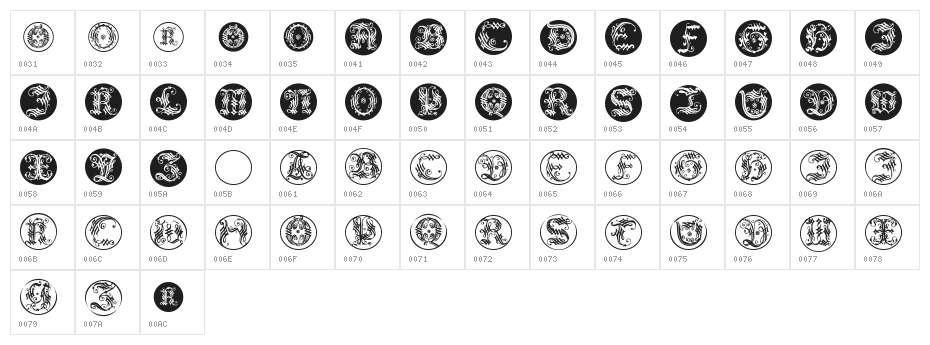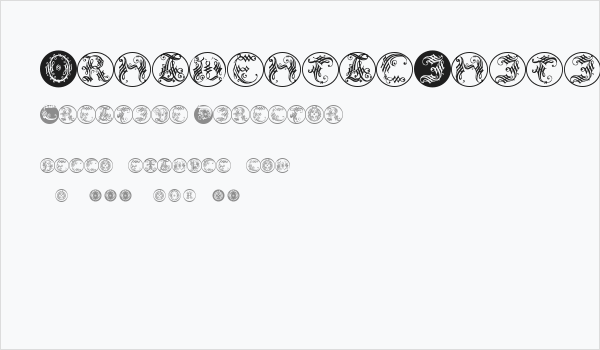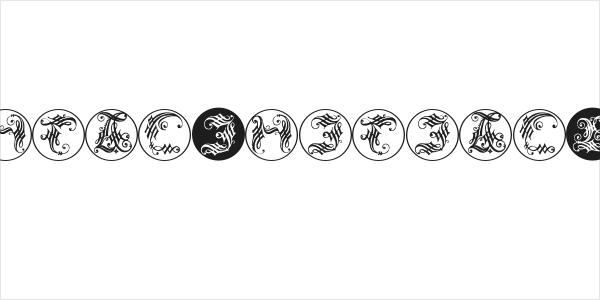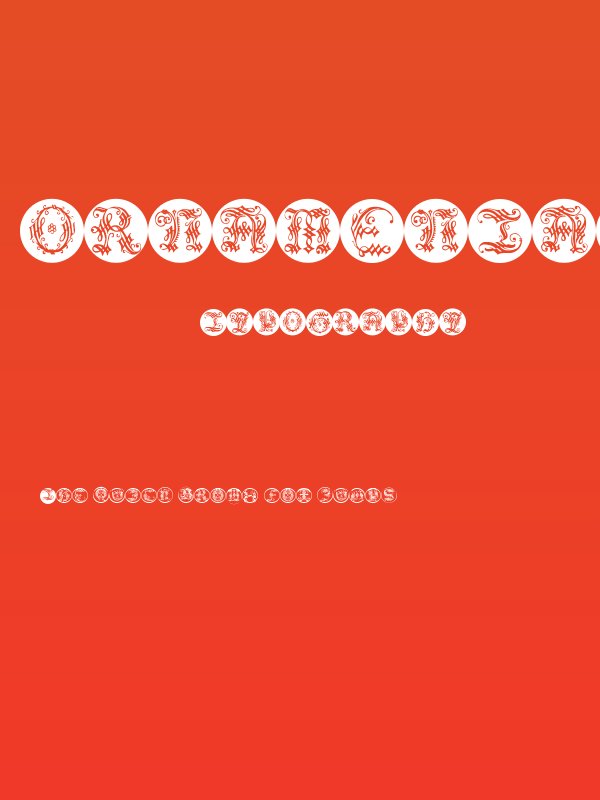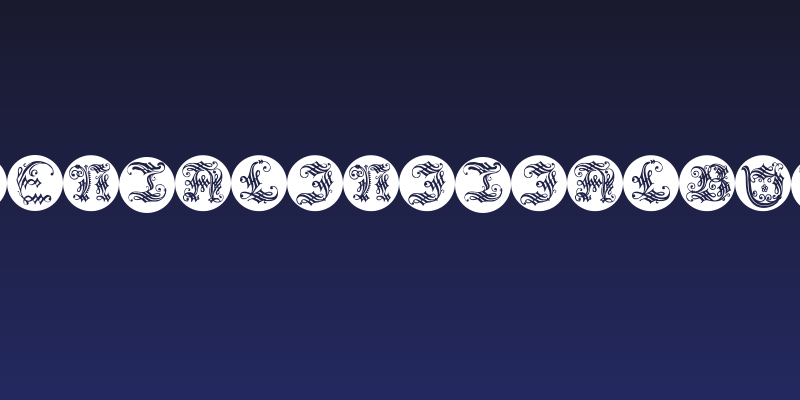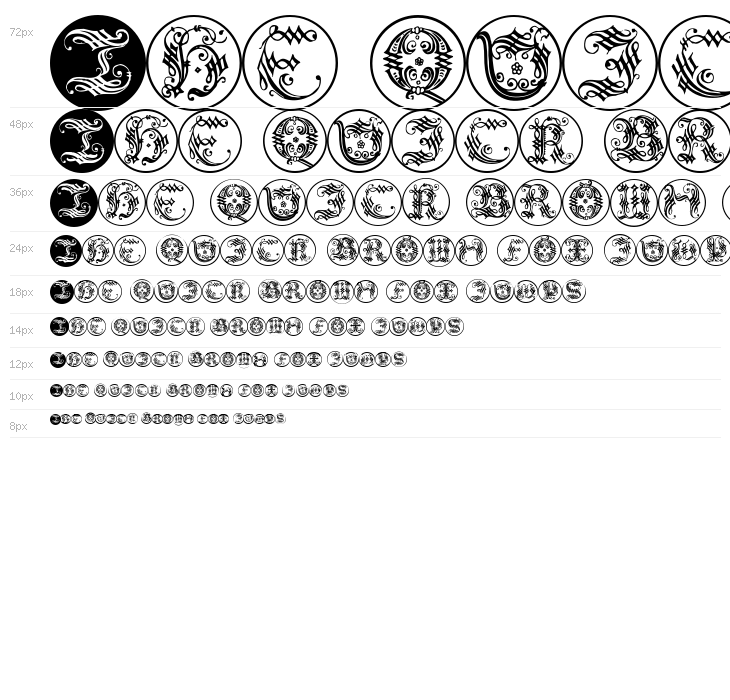
OrnamentalInitialButtons Font
OrnamentalInitialButtons Description
This font features an intricate and decorative style, with each character enclosed in a circular button-like shape. The letters are highly ornamental, showcasing elaborate swirls and flourishes that give them a vintage and elegant appearance. The design is consistent across both uppercase and lowercase letters, as well as numbers and special characters, all maintaining the same ornate aesthetic. The characters are presented in a way that suggests a historical or classical influence, making them suitable for projects that require a touch of sophistication and artistry.
| Use Case | Logos, Decorative headings, Artistic designs |
| Proposed Projects | Ideal for wedding invitations, vintage-themed branding, decorative posters, and artistic projects that require a touch of elegance. |